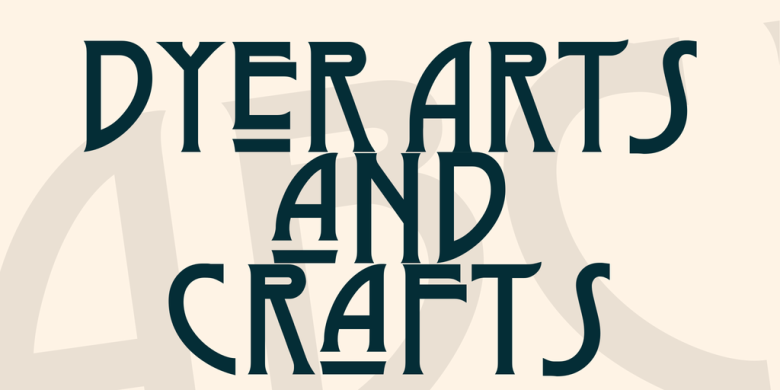
Dyer Arts and Crafts Font
Dyer Arts and Crafts is a neat and clean Retro font which is developed by Typo-Graf and it is completely free for both personal and commercial uses. Only the current letters, both uppercase and lowercase and some additional special symbols are an indicator of a free software available on the site.